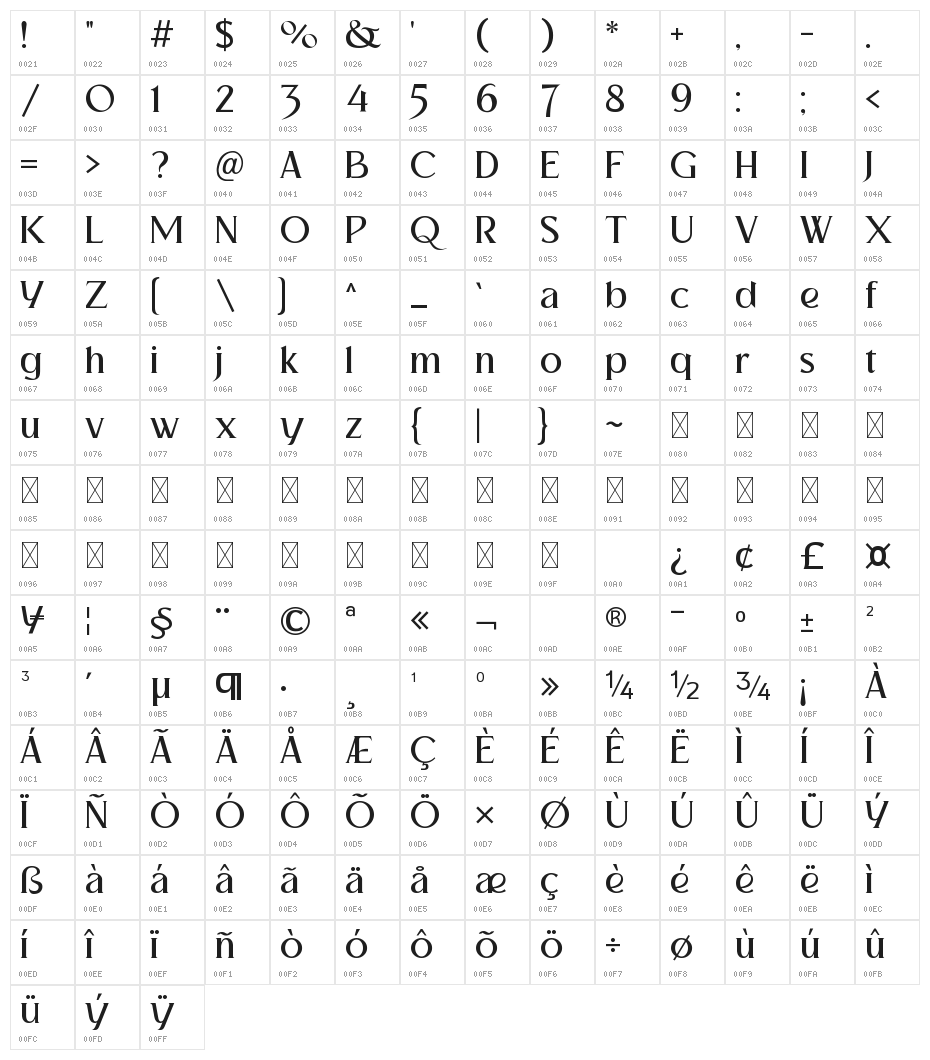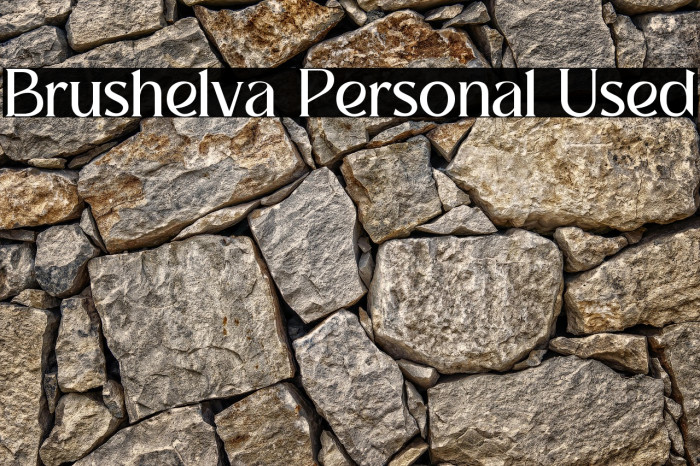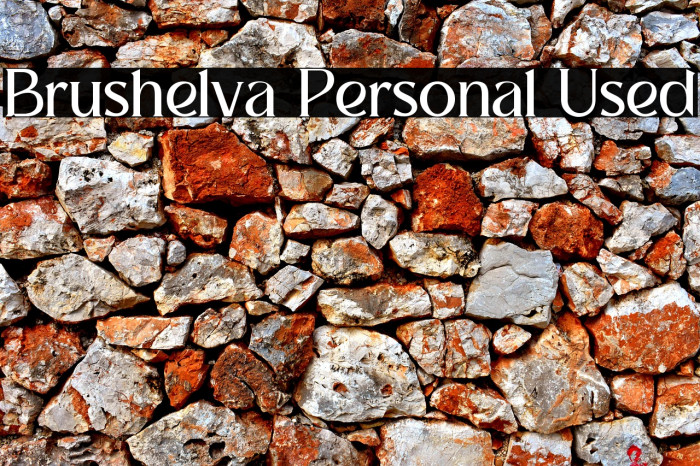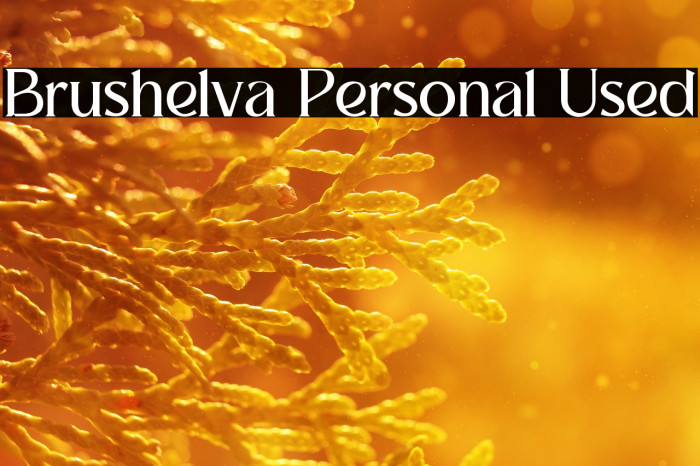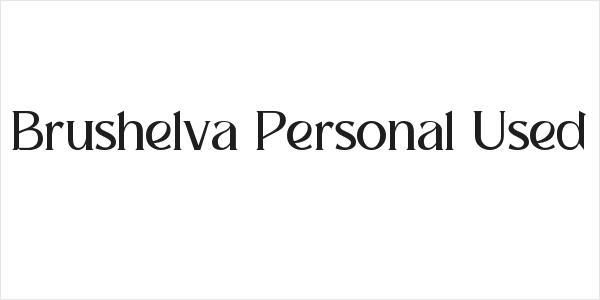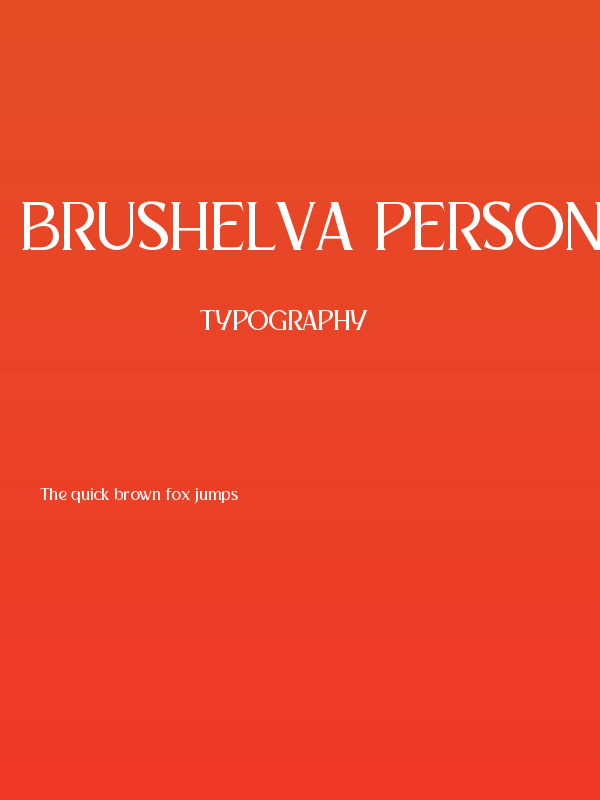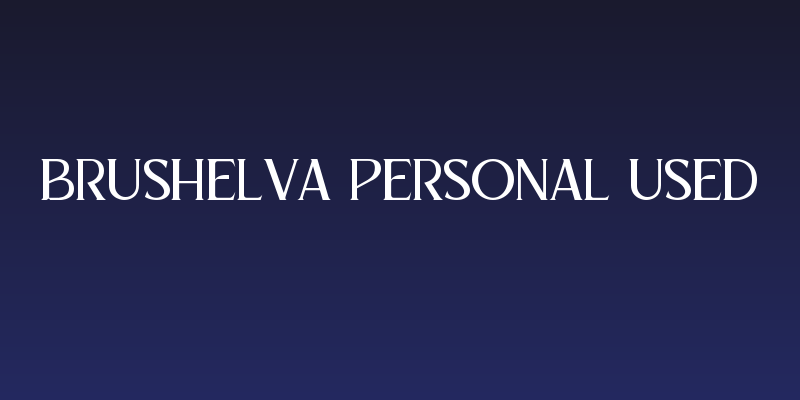
Brushelva Personal Used Font
Brushelva Personal Used Description
A decorative serif font with elegant curves and a classic yet modern appearance.
Proposed ProjectsLogos, headlines, invitations, branding.